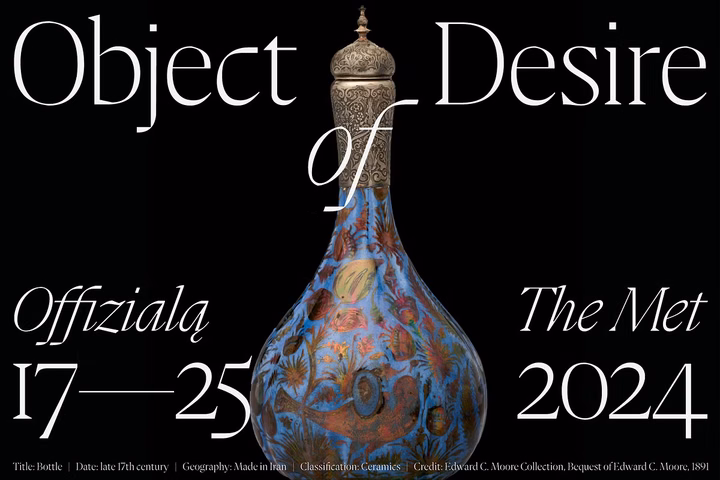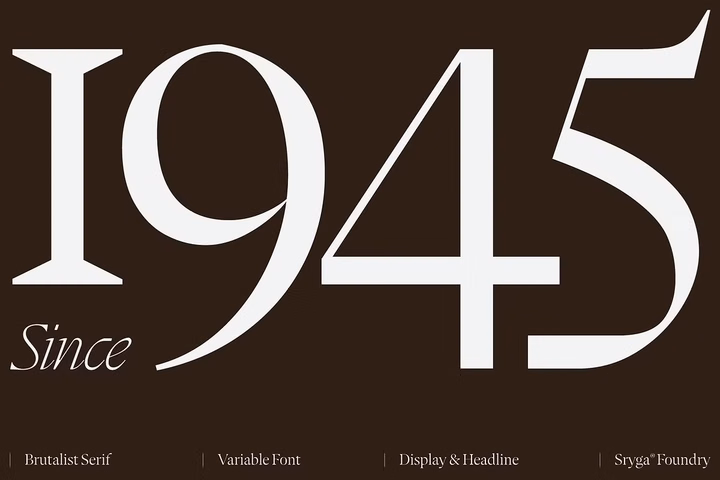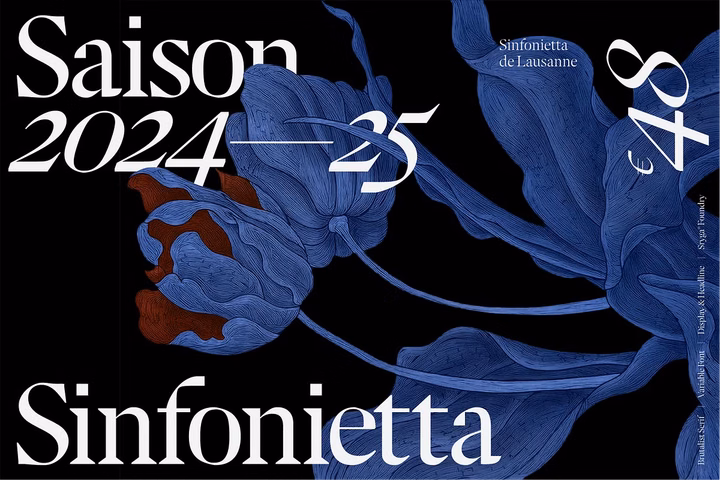
Kaguci is a typeface born from the fusion of heritage and futurism, where the traditional serif aesthetic is disrupted by a glitch from the future. Inspired by the past yet propelled into a digital, brutalist realm, Kaguci balances rigid modernity with warmth through its bold contrast and organic curves.
It’s more than a typeface—it’s an organism, evolving within a glitchy digital landscape, with 10 cuts ranging from ultra thin to black and matching true italics. Kaguci invites designers to explore the future of typography while staying rooted in timeless aesthetics.